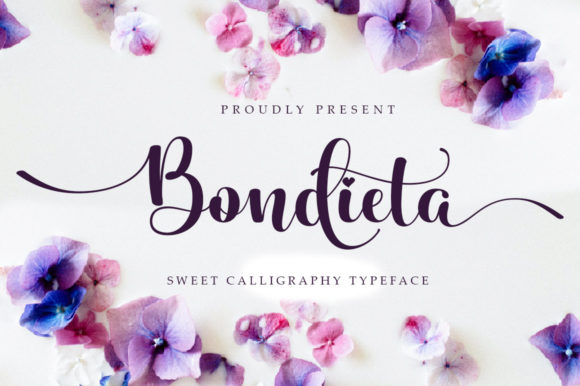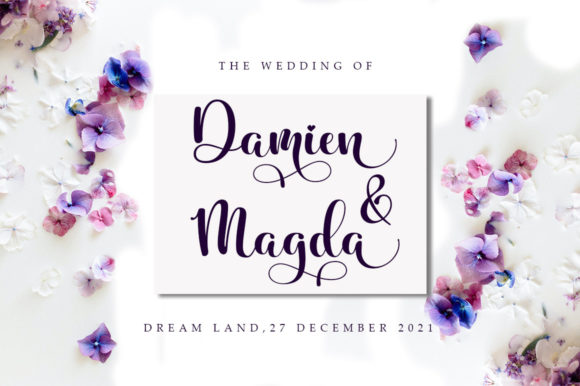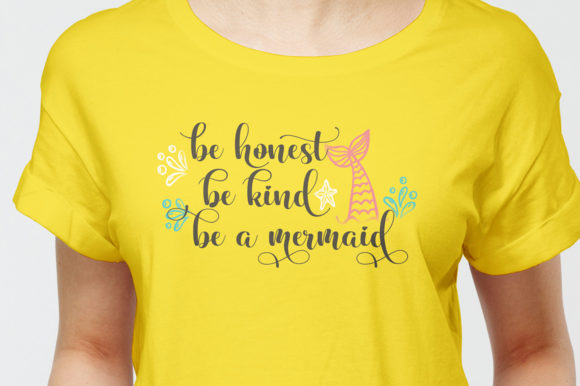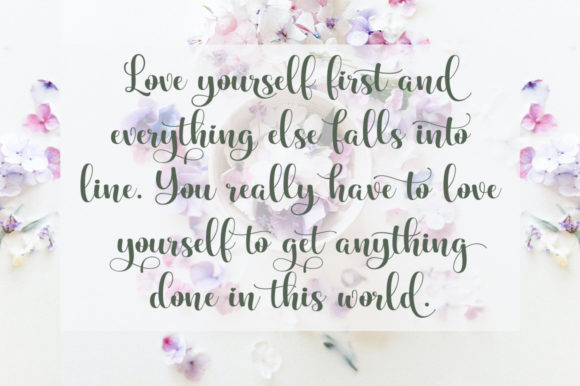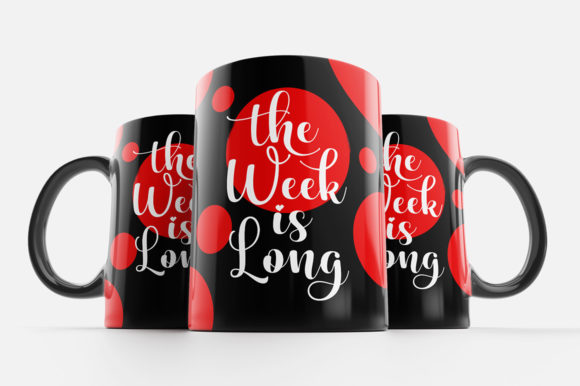
About Bondieta Script Font
Bondieta Script feels equally charming and elegant. It looks stunning on wedding invitations, thank you cards, quotes, greeting cards, logos, business cards and every other design which needs a handwritten touch.